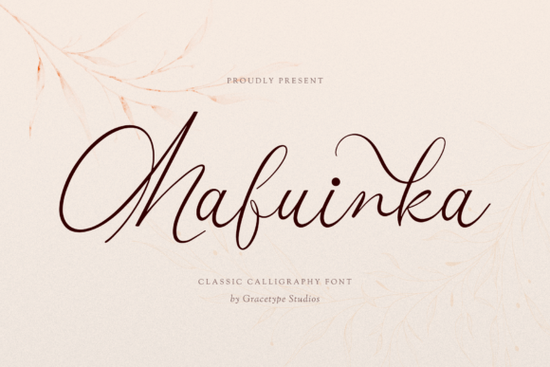
The Mafuinka Font is a hand-drawn signature script with ultra-fine, fluid strokes and dramatic high-contrast loops. If you're working on wedding invitations, luxury branding, or elegant packaging, this typeface gives your designs a polished, high-end penmanship look without hiring a calligrapher. It's designed to feel intimate and refined the kind of lettering that looks like it was written with an expensive fountain pen on premium paper.
What Makes Mafuinka Stand Out from Other Script Fonts?
Plenty of script fonts try to look elegant, but many end up feeling stiff or overly digital. What sets the Mafuinka signature typeface apart is its organic baseline and sweeping artistic ascenders. The letters don't sit in a rigid line they flow and dance, which gives your layouts a natural, handwritten quality.
The cursive ligatures are especially well-crafted. They connect letters smoothly without looking forced, so longer words and phrases still read clearly. The airy silhouette keeps everything light and luxurious, even at smaller sizes. For designers who need a script that balances beauty with legibility, this one delivers.
Who Is This Font Best For?
Mafuinka works well for a specific range of projects. Here's where it really shines:
- Wedding stationery save-the-dates, invitations, RSVP cards, and envelope addressing
- Beauty and cosmetics branding logos, labels, and product packaging for skincare or makeup lines
- Artisanal perfume packaging the delicate strokes pair perfectly with fragrance branding
- Boutique fashion labels hang tags, lookbooks, and brand identity
- Luxury editorial layouts magazine headers, pull quotes, and feature spreads
- Digital signatures email signatures, PDF signing pages, and e-commerce thank-you pages
It's less suited for body text or technical documents. This is a display and accent font meant to catch the eye, not carry paragraphs.
How Does Mafuinka Compare to Other Elegant Scripts?
If you're browsing Mafuinka alongside other options, you might also come across similar choices. Scarlett is another beautiful script with a flowing, feminine feel great for branding and invitations. Meanwhile, Scarlett's style leans a bit more traditional, whereas Mafuinka has a more modern, fashion-forward energy.
For something with a bit more whimsy, the Curlicue typeface adds playful decorative flourishes. It's a nice pick for craft projects and party invitations. Curlicue has a lighter, more casual personality compared to Mafuinka's polished sophistication.
Looking for something sweet and approachable? the Candy Diary handwritten font works well for fun, youthful designs. And if you want something cozy and charming, the Room for Tiramisu script brings warmth and character. Room for Tiramisu is especially popular for bakery branding and café menus.
Each of these scripts fills a different niche. Mafuinka sits firmly in the upscale, editorial, luxury category it's not trying to be cute or playful. It's trying to look expensive and intentional.
- Pairing fonts A script like Mafuinka pairs best with a clean, simple sans-serif for body text
Also, try typing out your specific project text before finalizing. Some script fonts look gorgeous in the preview but struggle with certain letter combinations. Test your brand name or key phrases first.
Tips for Using Mafuinka in Your Designs
A few practical notes from working with high-contrast script fonts like this one:
- Use it at larger sizes the fine strokes can get lost at small sizes, especially in print
- Give it breathing room generous letter spacing and line height let the loops and ascenders stand out
- Avoid all-caps usage script fonts like this are designed for mixed case; uppercase letters should start sentences or names only
- Pair with neutral fonts let Mafuinka be the star; don't compete with another decorative typeface
- Test on both screen and print what looks elegant on your monitor might need size adjustments for physical products